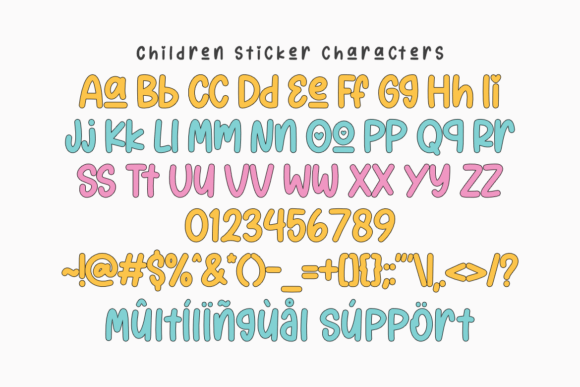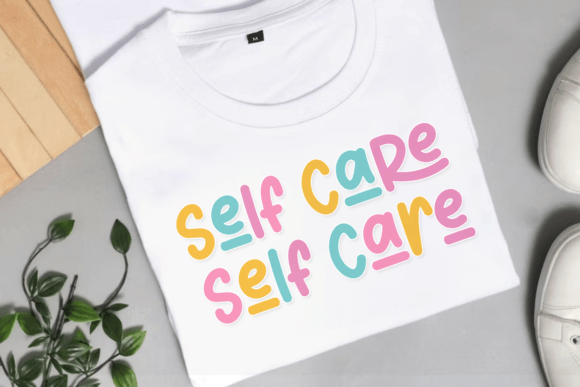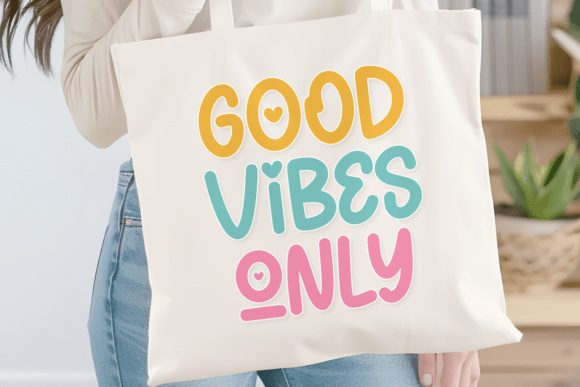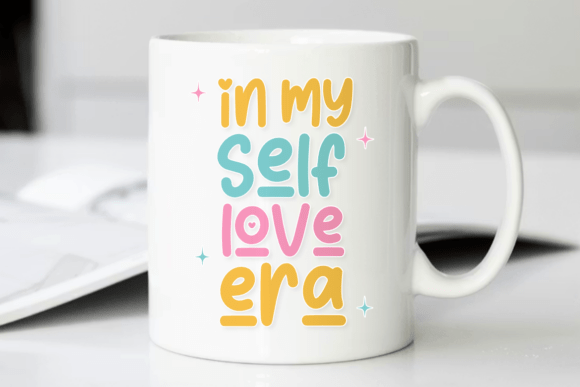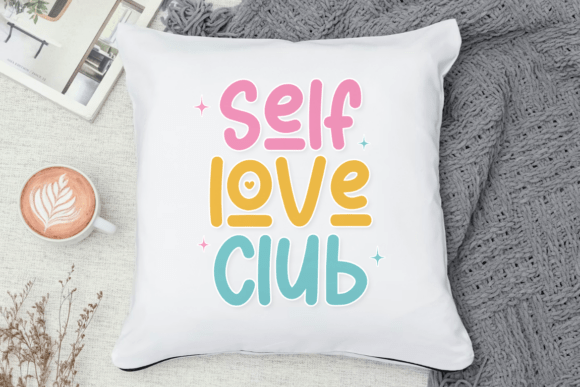
Introducing Children Sticker Font: The Ultimate Choice for Whimsical and Playful Designs
Are you a designer or crafter looking for a font that captures the essence of childhood wonder and playfulness? Look no further than the Children Sticker Font! This adorable display font is inspired by the whimsical and cheerful world of childhood stationery and colorful decals, making it perfect for a wide range of creative projects.
What Makes Children Sticker Font So Special?
The Children Sticker Font features soft, rounded strokes and playful proportions that evoke a sense of joy and creativity. Its clean, bold lines are perfectly optimized for the crafting community, ensuring a smooth and easy weeding experience for all your vinyl and digital cutting projects. This font is designed to make your designs stand out, whether you’re creating personalized kids’ stickers, school labels, custom lunchbox decals, nursery wall art, birthday invitations, or t-shirt designs for children.
The Children Sticker Font is incredibly versatile and can be used for a variety of projects, including:
- Creating personalized kids’ stickers and labels
- Designing custom lunchbox decals and nursery wall art
- Crafting birthday invitations and t-shirt designs for children
- Classroom decor and teacher appreciation gifts
- Digital scrapbooking and playful social media branding
Holiday Themes and Seasonal Designs
The Children Sticker Font is especially perfect for holiday themes and seasonal designs, such as:
- Back to School season
- Children’s Day
- Birthdays and Spring celebrations
This font adds a friendly and spirited touch to every festive project, making it ideal for creating eye-catching designs that capture the essence of the season.
Why Designers and Crafters Love Children Sticker Font
Designers and crafters love the Children Sticker Font for its unique and playful style, which adds a touch of whimsy and fun to any design. The font’s clean and bold lines make it easy to read and use, even for intricate designs and small text. Additionally, the font’s optimization for vinyl and digital cutting projects ensures a smooth and easy weeding experience, saving crafters time and effort.
Tips for Using Children Sticker Font
Here are some tips for using the Children Sticker Font in your designs:
- Pair the font with bright and bold colors to create eye-catching designs
- Use the font for headings and titles to add a playful touch
- Experiment with different font sizes and styles to create visual interest
- Combine the font with other playful design elements, such as illustrations and graphics, to create a unique and whimsical design
The Children Sticker Font is a must-have for designers and crafters looking to add a touch of whimsy and playfulness to their designs. With its soft, rounded strokes and playful proportions, this font is perfect for a wide range of creative projects, from personalized kids’ stickers and labels to classroom decor and social media branding. Whether you’re a seasoned designer or a crafter just starting out, the Children Sticker Font is sure to become a favorite in your design arsenal.